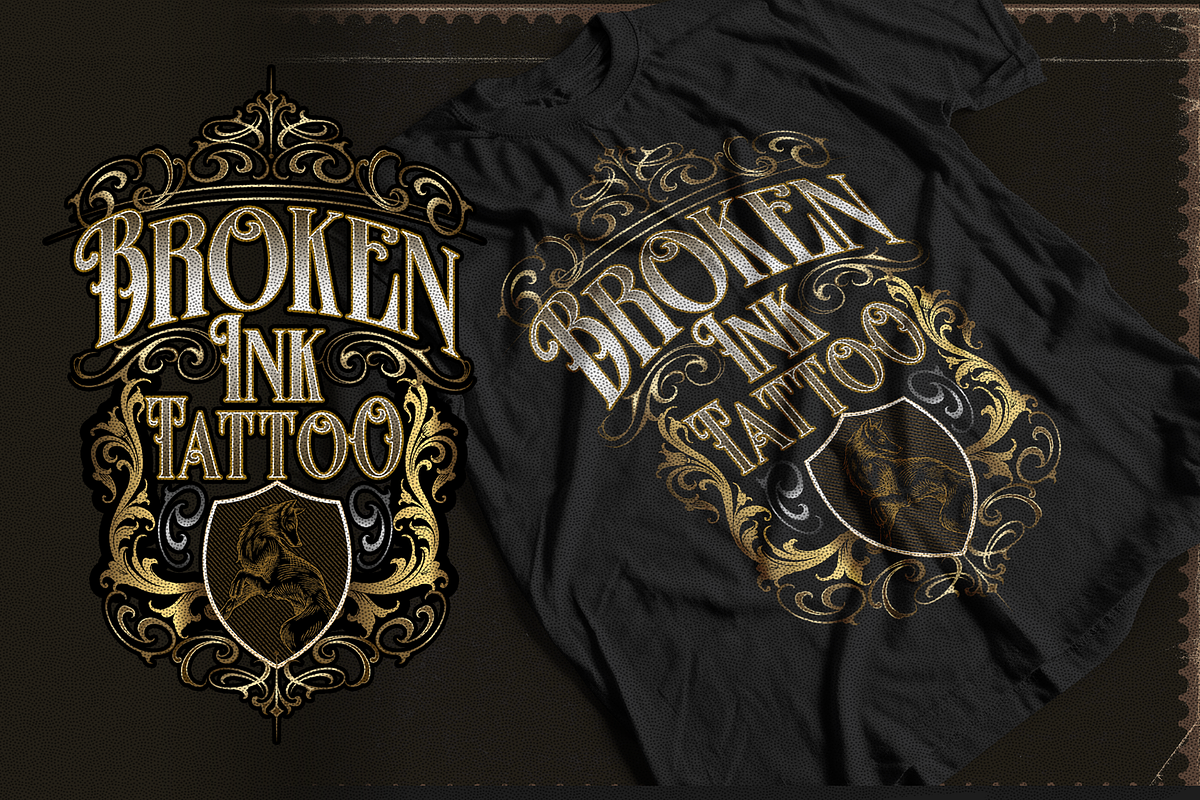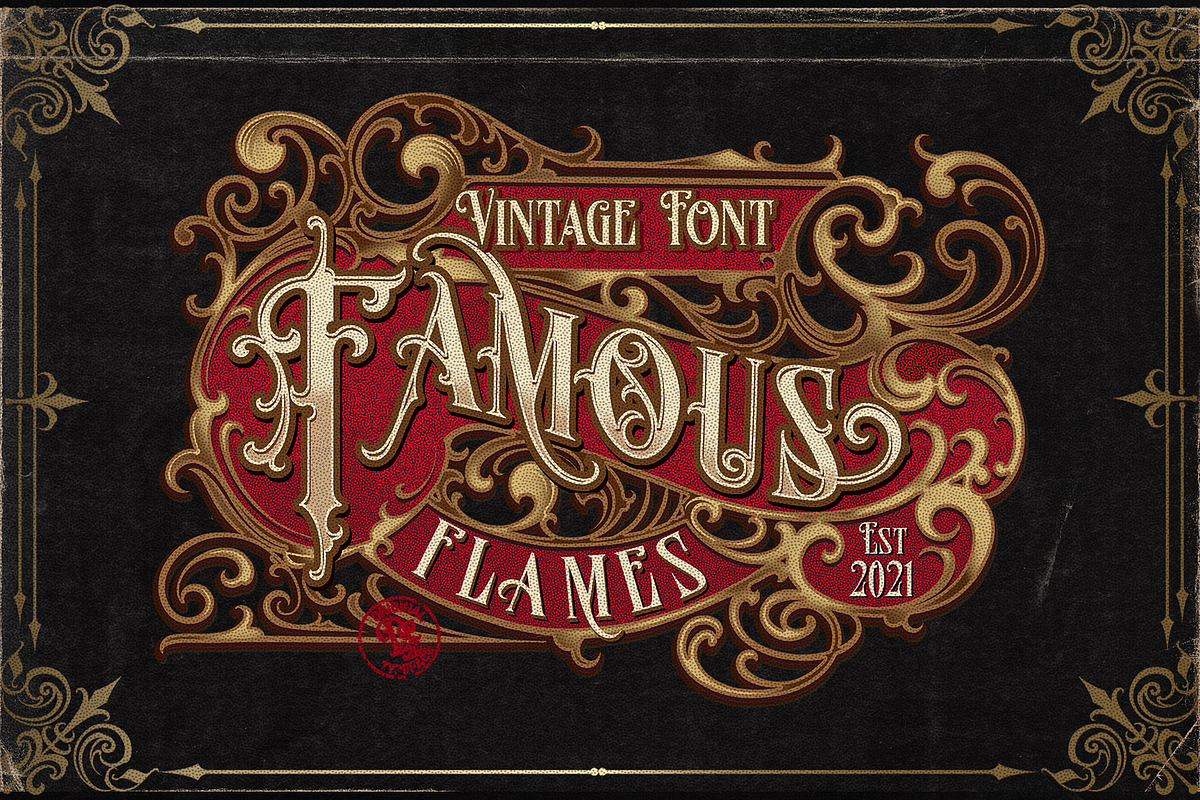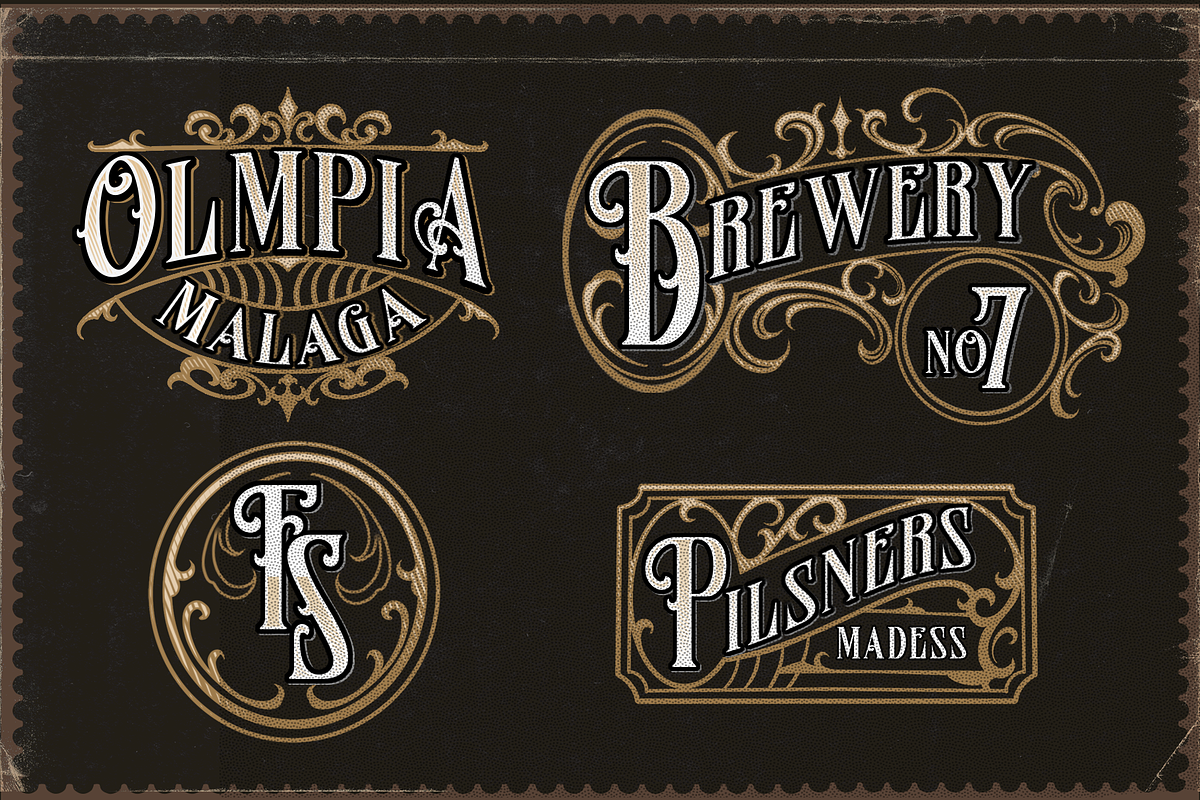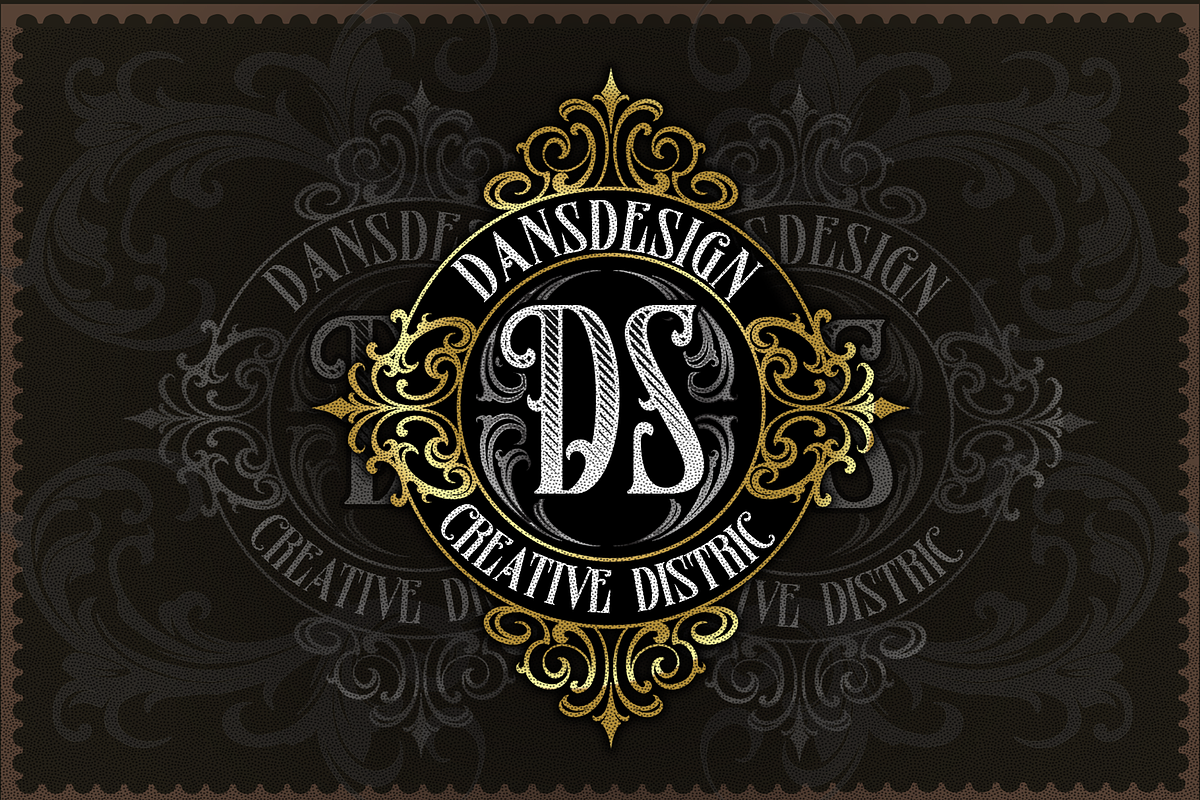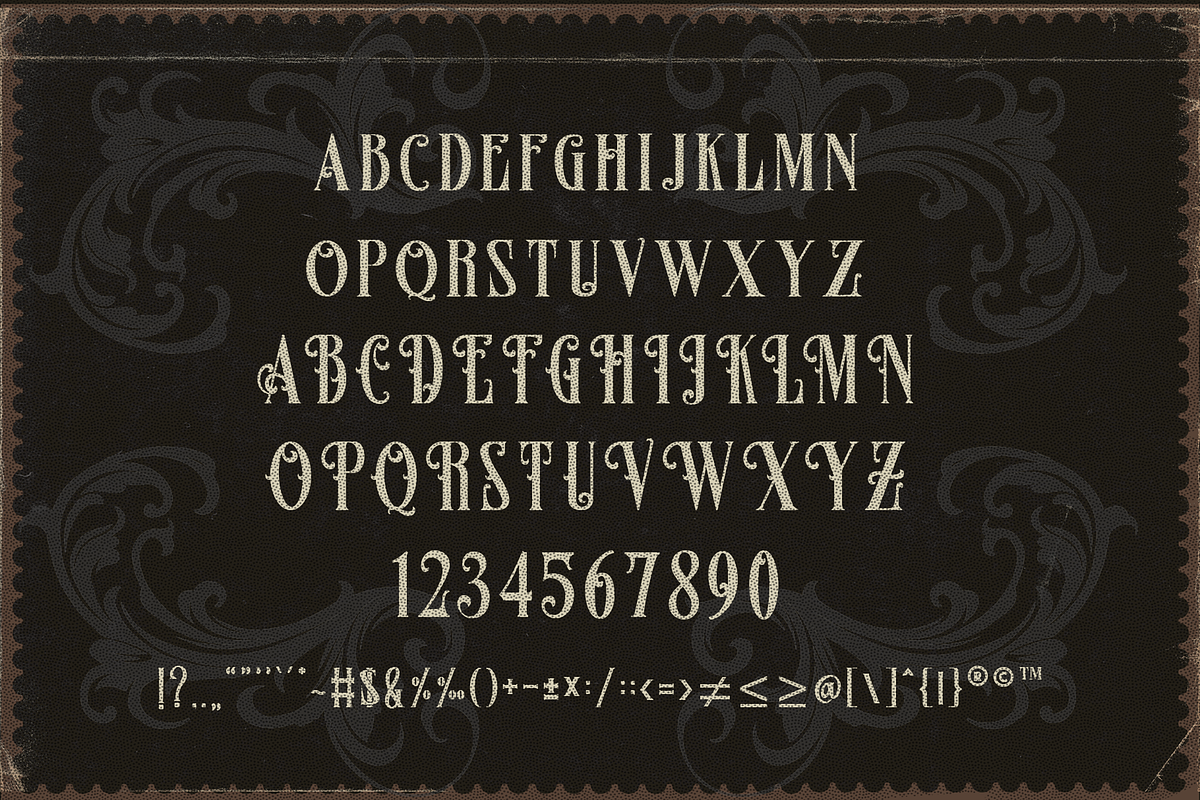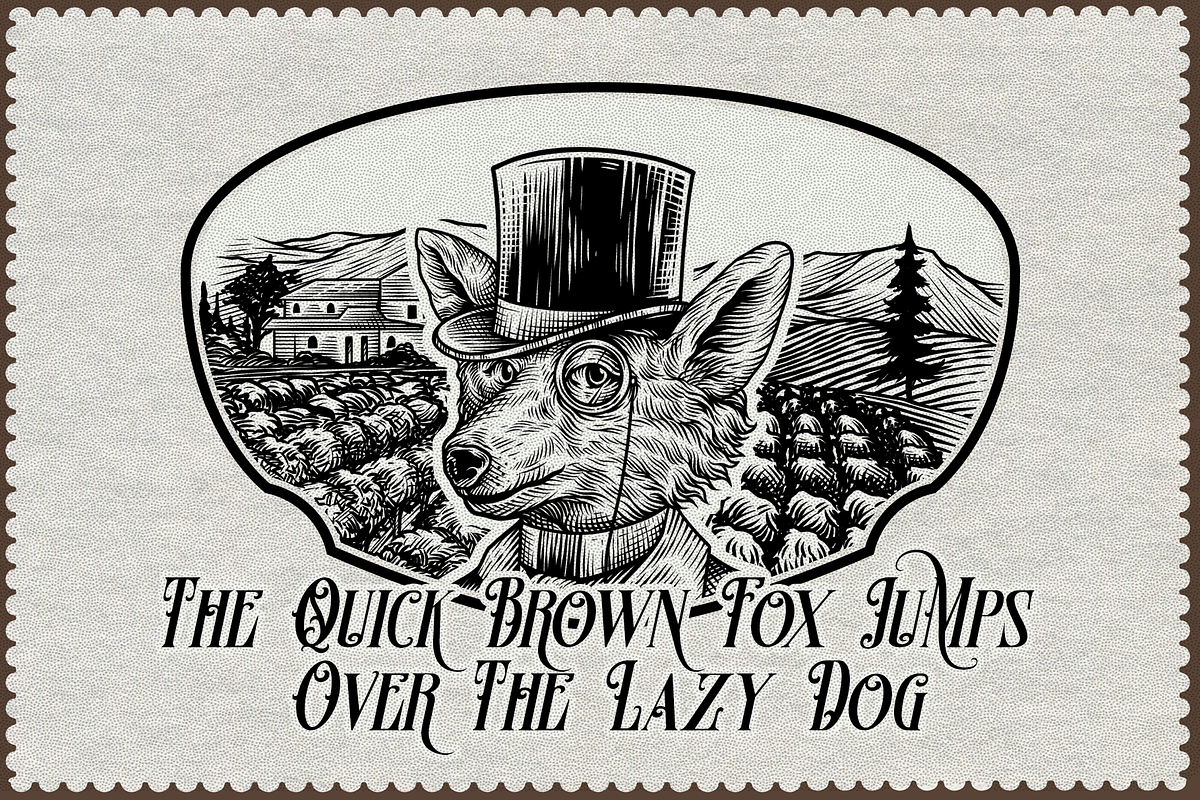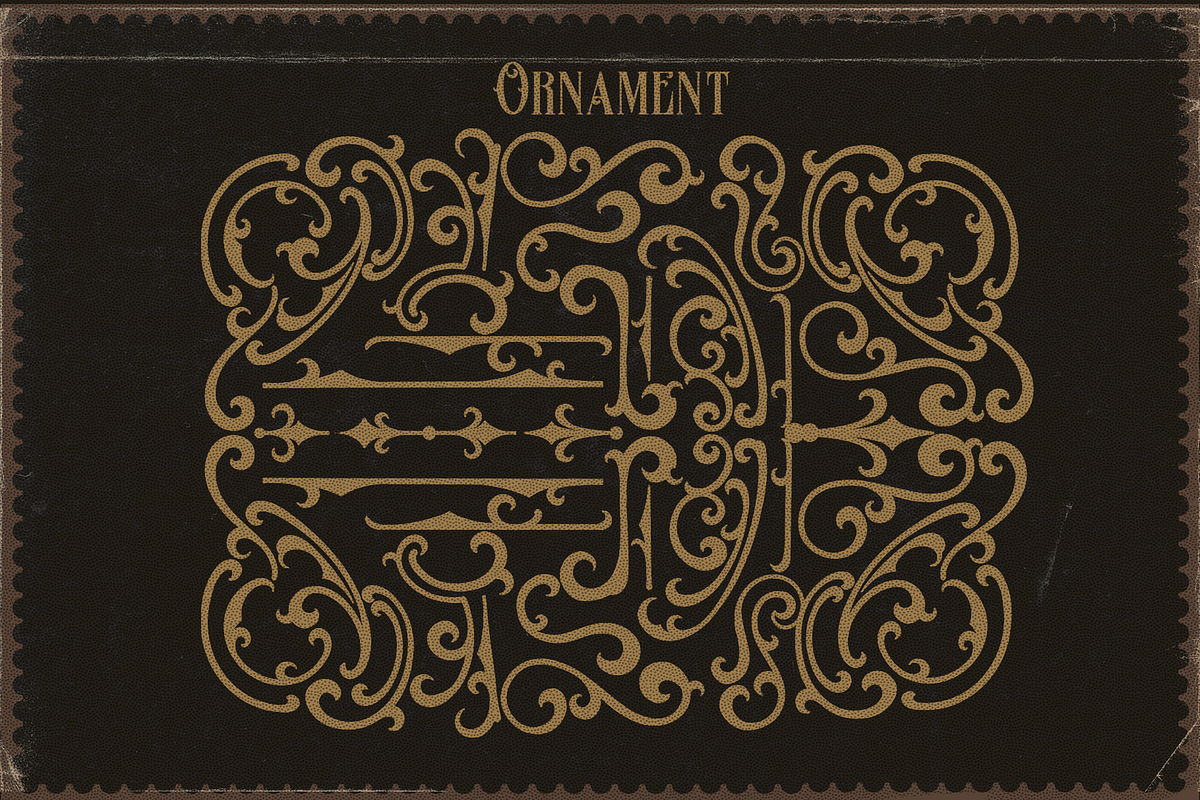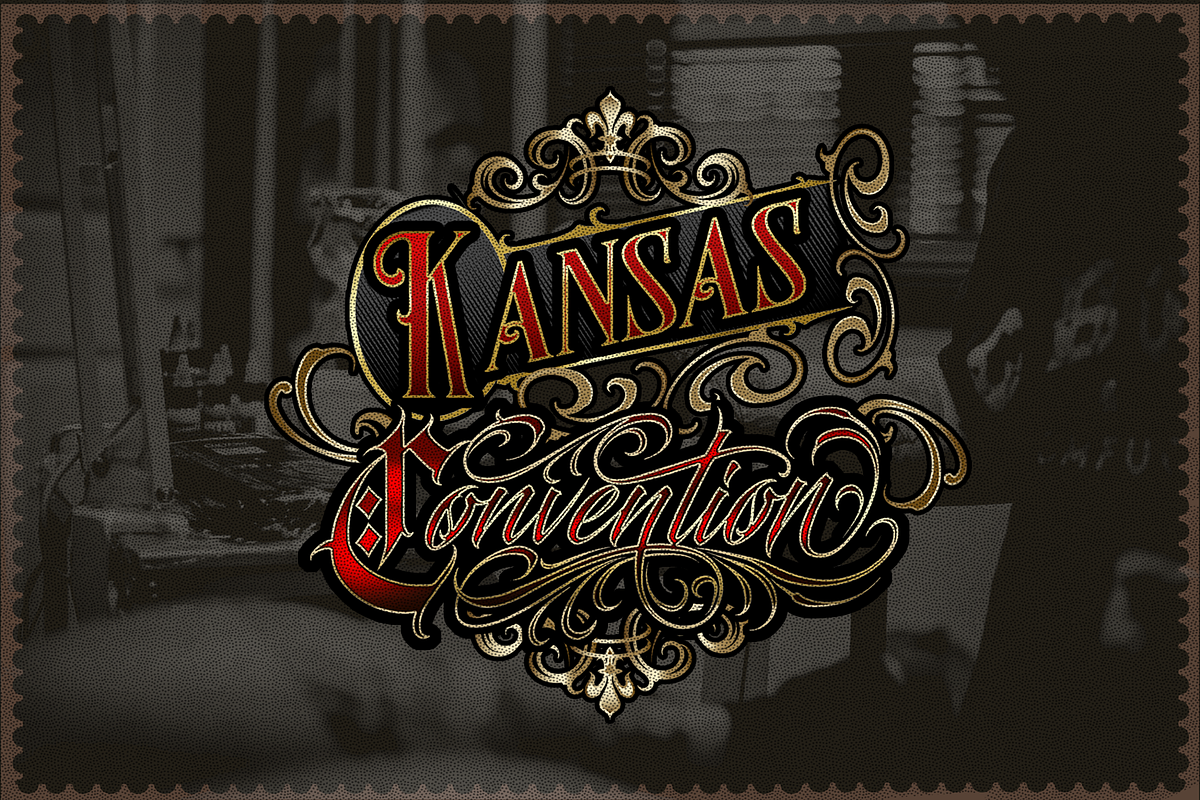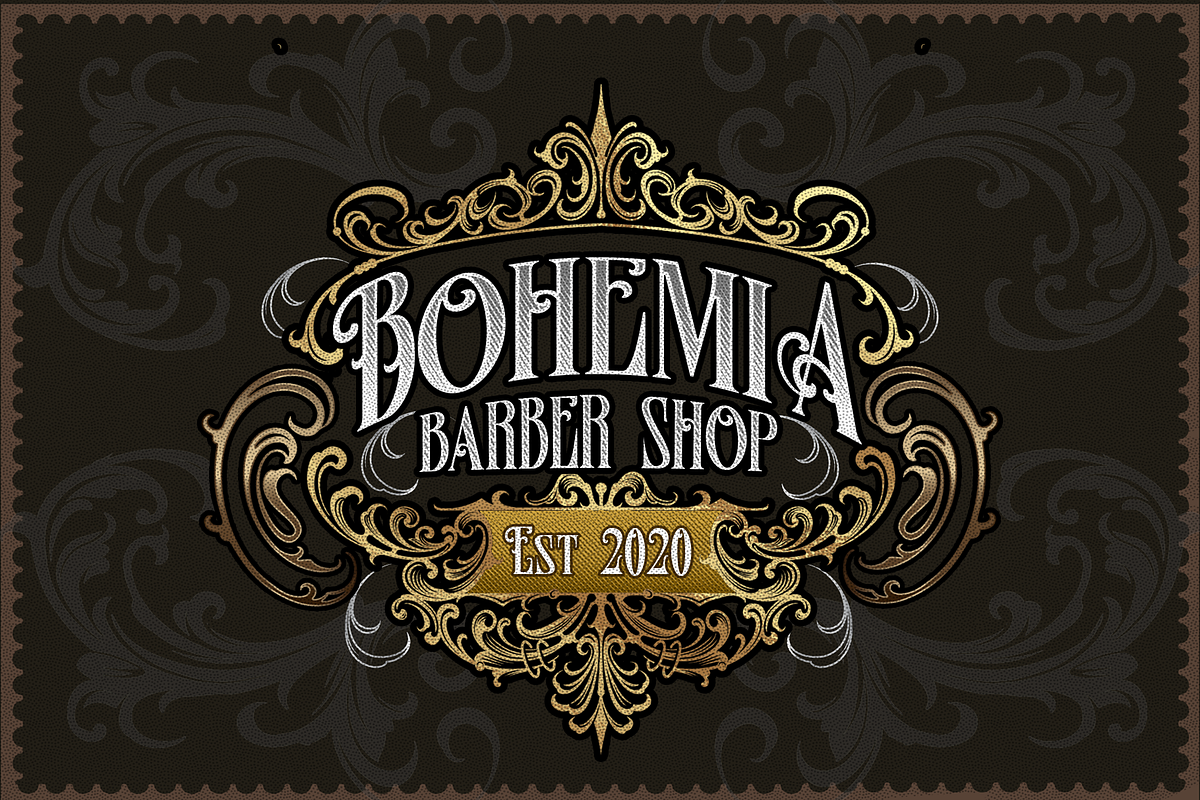
Famous Flames
Dansdesign Proudly present Famous Flames vintage font, This font is made with references to various letters that I combine and design with my style.
Famous Flames + EXTRAS are great and usefull for product logo, poster title, headline, packaging, badge, wedding card logo, clothing brand logo, Vintage design and much more